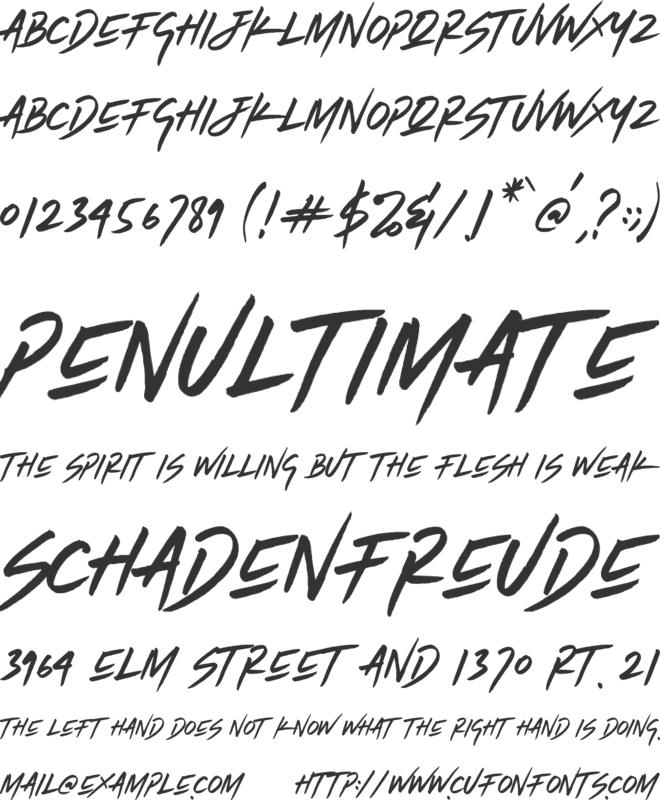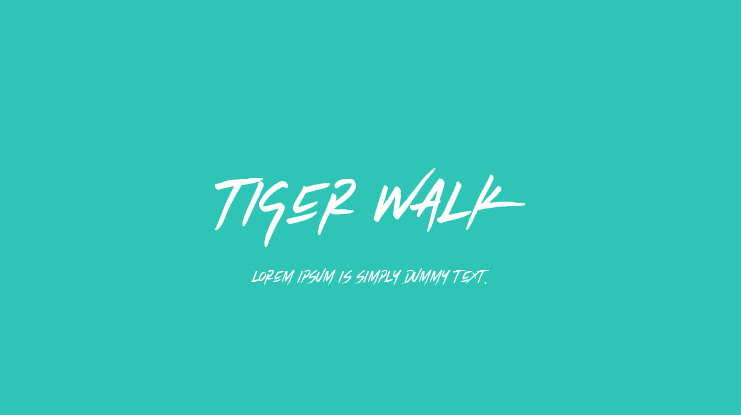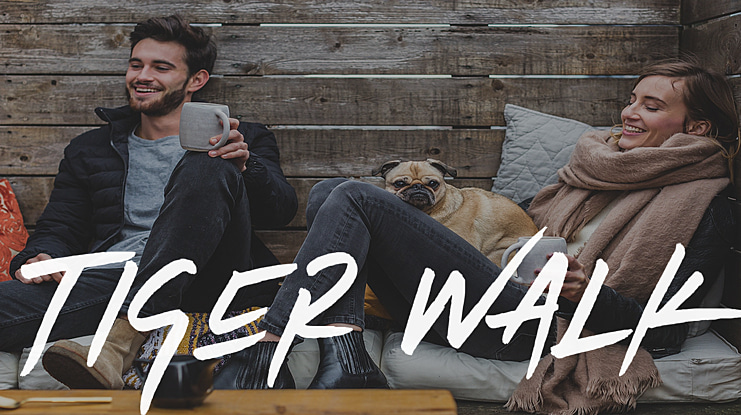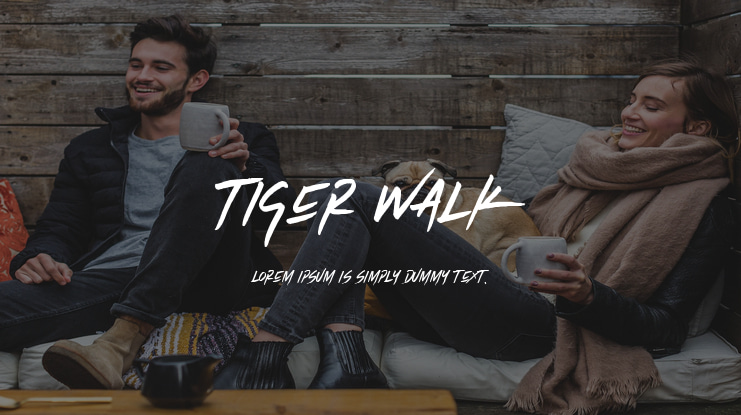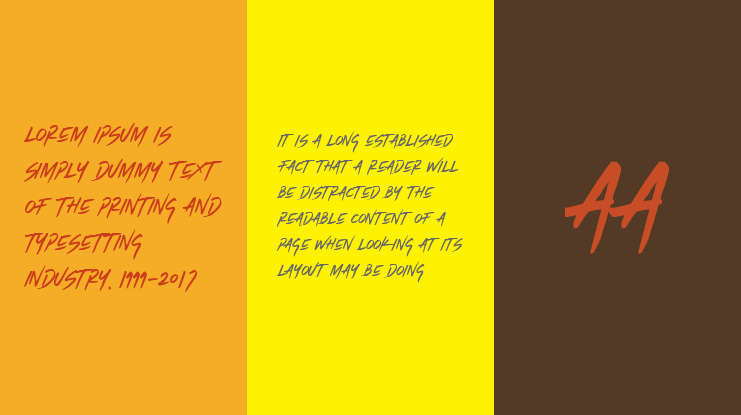
Tiger Walk Font
Introducing Tiger Walk a handwritten brush fonts with a sharp attitude and full energy. Tiger Walk is ready and raring to make a big statement on your logo designs, brand imagery, handwritten quotes, product packaging, merchandise, music projects & social media posts. Lets enjoy it!